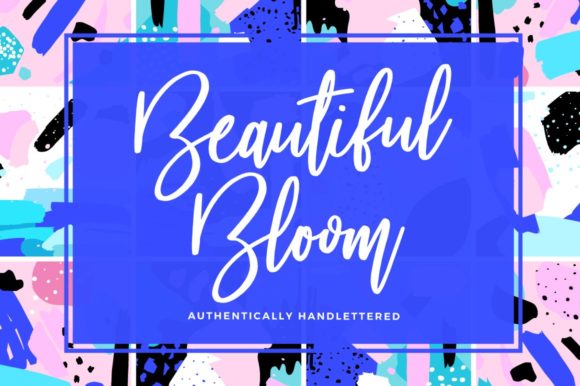
Introducing Beautiful Bloom Font, the epitome of elegance and charm, meticulously crafted by wornoutmedia to ignite your creativity. Immerse yourself in its enchanting world of swashes, ligatures, and alternates, offering endless possibilities to transform your designs into captivating works of art.
With its delicate strokes and graceful curves, the Beautiful Bloom Script Font exudes a touch of sophistication that's sure to leave a lasting impression. Its organic and dynamic nature lends itself perfectly to expressing emotions and adding a personal touch to your projects.
Be it wedding invitations, branding, social media graphics, or product packaging, the Beautiful Bloom Script Font effortlessly elevates your designs to new heights. Its versatility knows no bounds, inviting you to explore a vast spectrum of styles, from classic and vintage to modern and minimalist.
Unleash your inner artist and embrace the beauty of hand-lettering with the Beautiful Bloom Script Font. Let your words dance across the page with a sense of fluidity and grace that will captivate your audience.